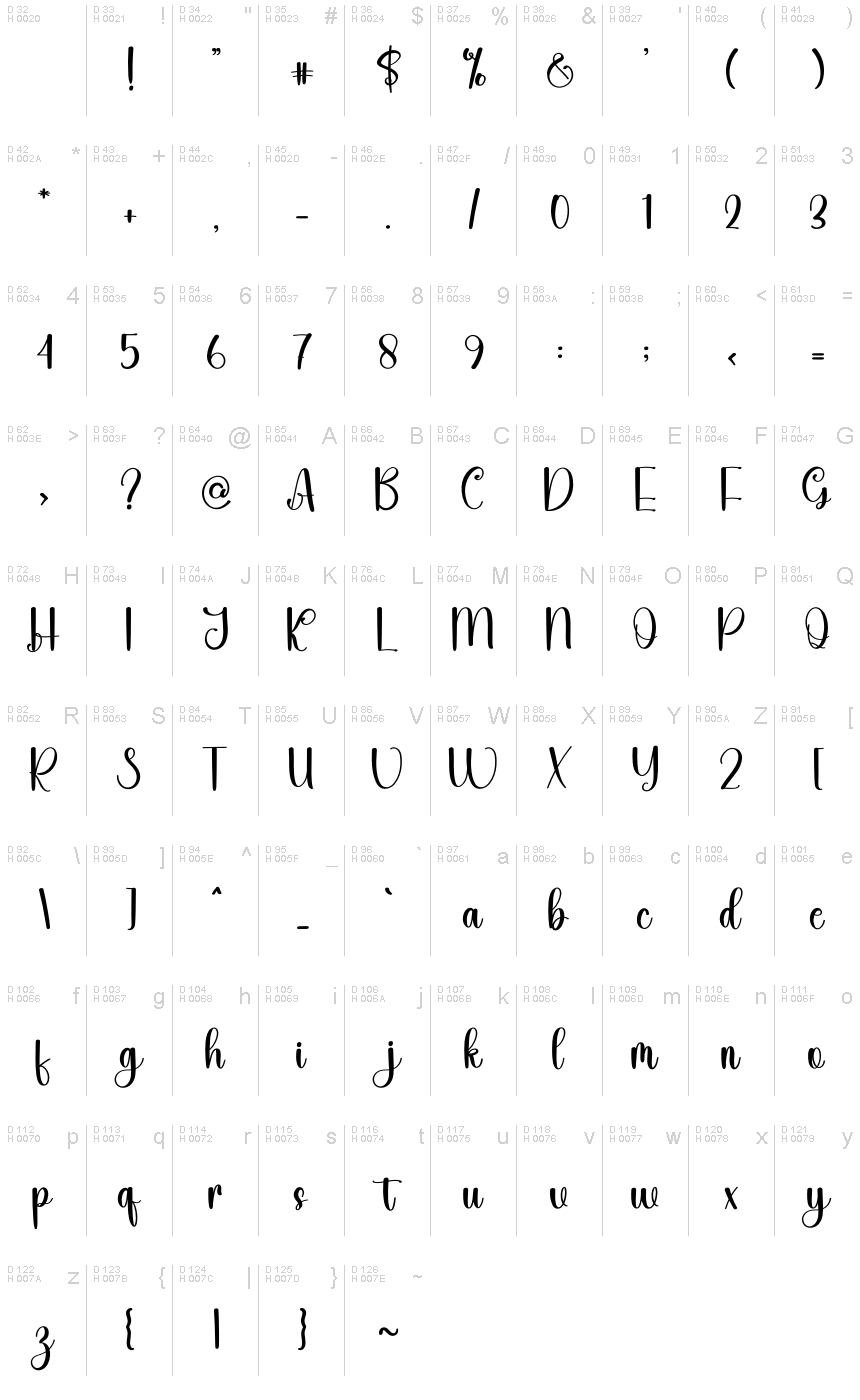
Goat
Goat, designed by Inermedia Studio, is a handwritten font that exudes charm and personality. Its fluid strokes and varied line weights capture the spontaneity of hand-drawn letters, making it a delightful choice for projects that require a personal touch. The Goat font's aesthetic appeal lies in its blend of casual elegance and playful quirkiness, offering designers a versatile tool for crafting captivating messages.
Ideal for invitations, branding, and social media graphics, Goat's style adds an authentic handcrafted feel to any creative work. Its legibility and distinct flair ensure that your message stands out with both sophistication and warmth. Embrace the artistry of handwriting with the Goat font and infuse your designs with its unmistakable character.